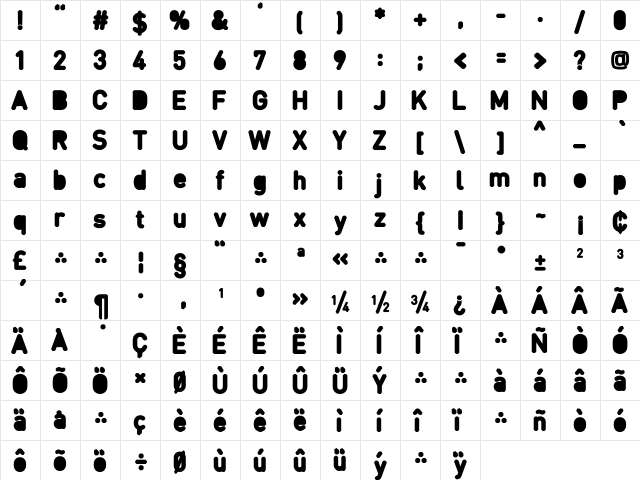
Fcraft Borgo Dark
| Foundry | Fcraft |
| Designer | Fabricio Alves |
Design Context for Fcraft Typeface
Fcraft offers clean, dependable letterforms without strong stylistic allegiance, making it a practical choice for designers who need flexibility.
Pro Tip: Pair Fcraft with a font of contrasting weight or personality to build a more expressive typographic hierarchy.